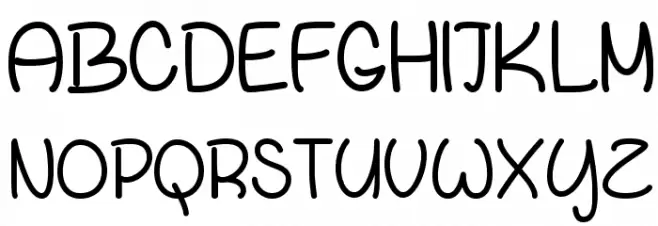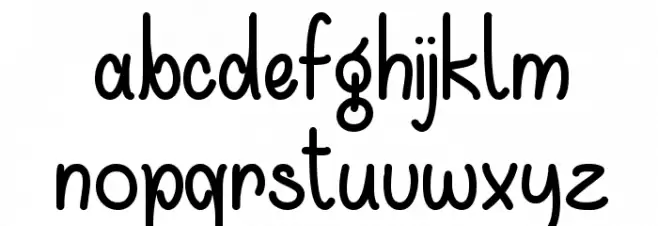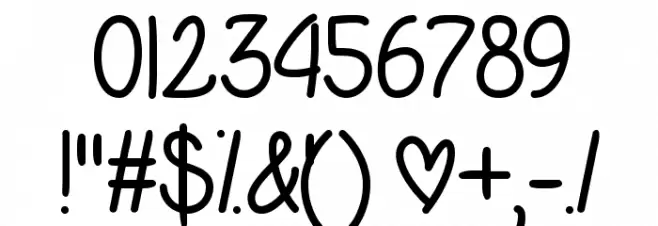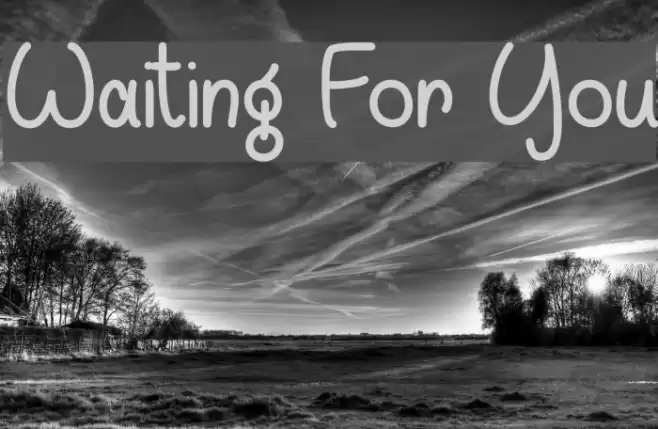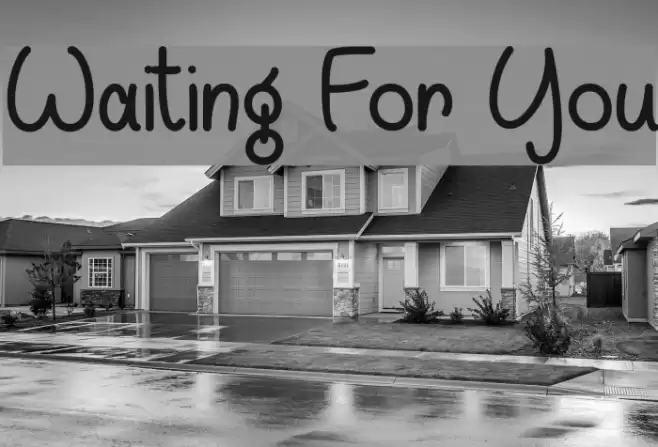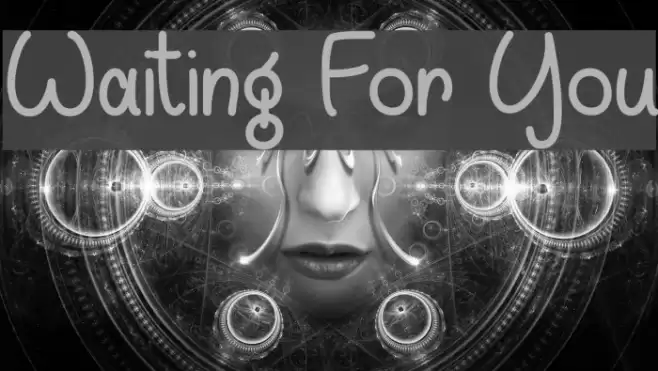
Waiting For You
This playful and whimsical font features rounded, smooth curves and a casual handwritten style. The characters are evenly spaced, with a consistent stroke width that gives it a friendly and approachable appearance. The uppercase letters maintain a uniform height, while the lowercase letters have a slight bounce, adding to the font's charm. The numerals and special characters are designed to match the overall style, making it versatile for various uses. Its simplicity and readability make it suitable for both digital and print media.
A playful, rounded handwritten font with smooth curves and consistent stroke width.
- Proposed Projects: Ideal for children's books, greeting cards, playful branding, and social media graphics.
- Overall Style: Playful
- Use Case: Headlines, Logos, Social media graphics